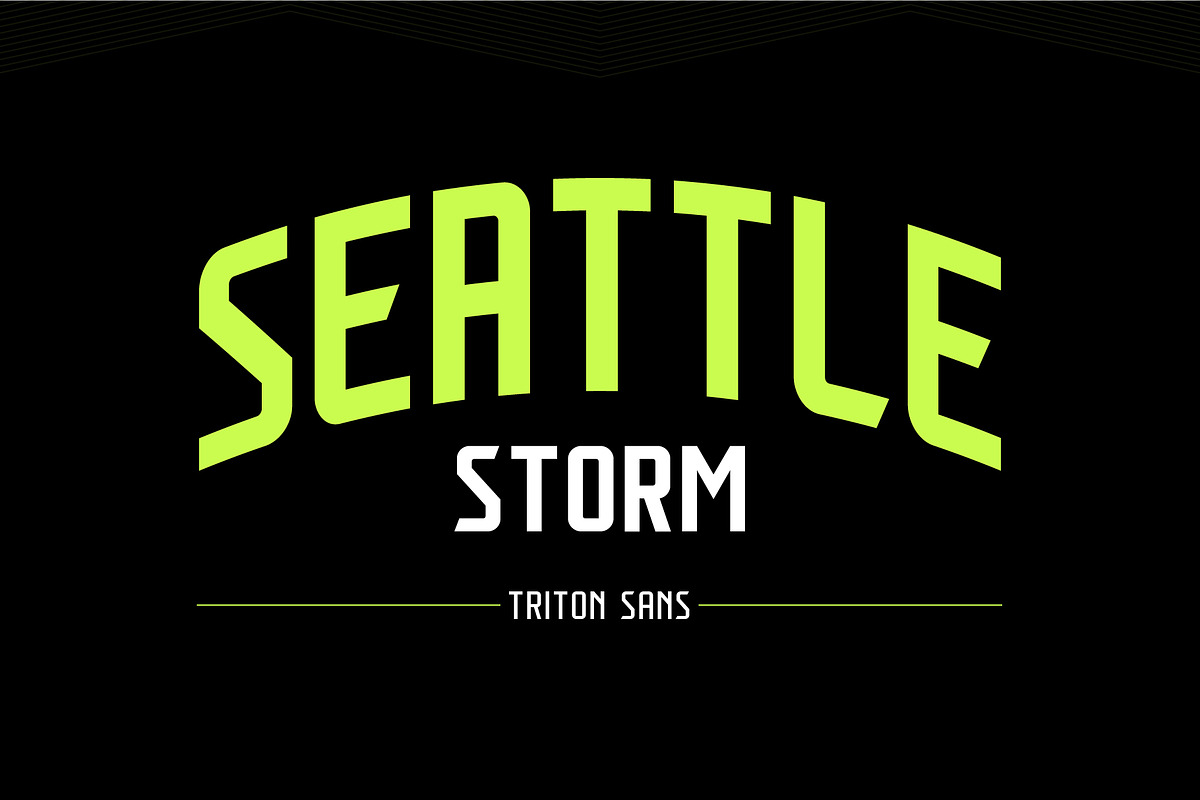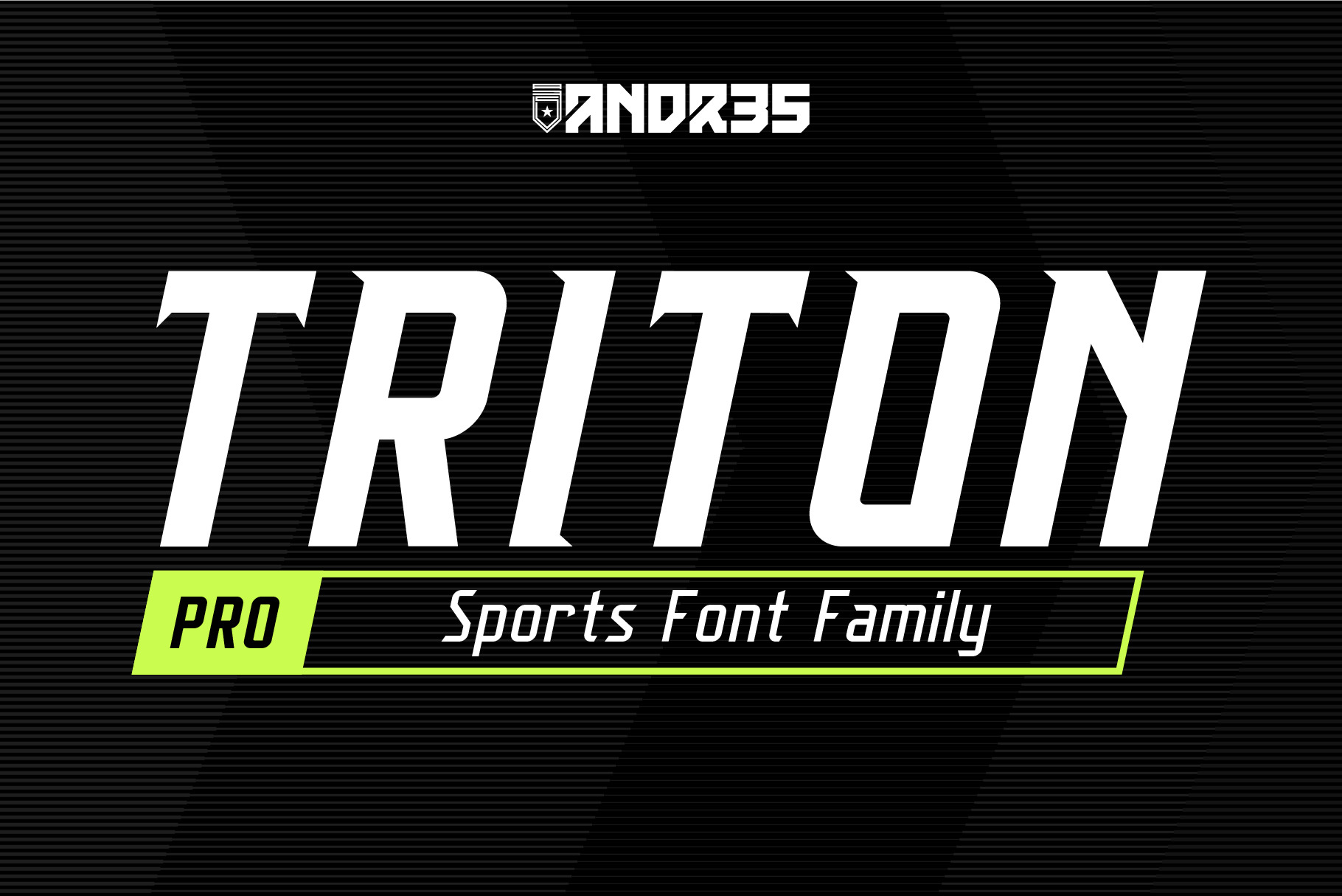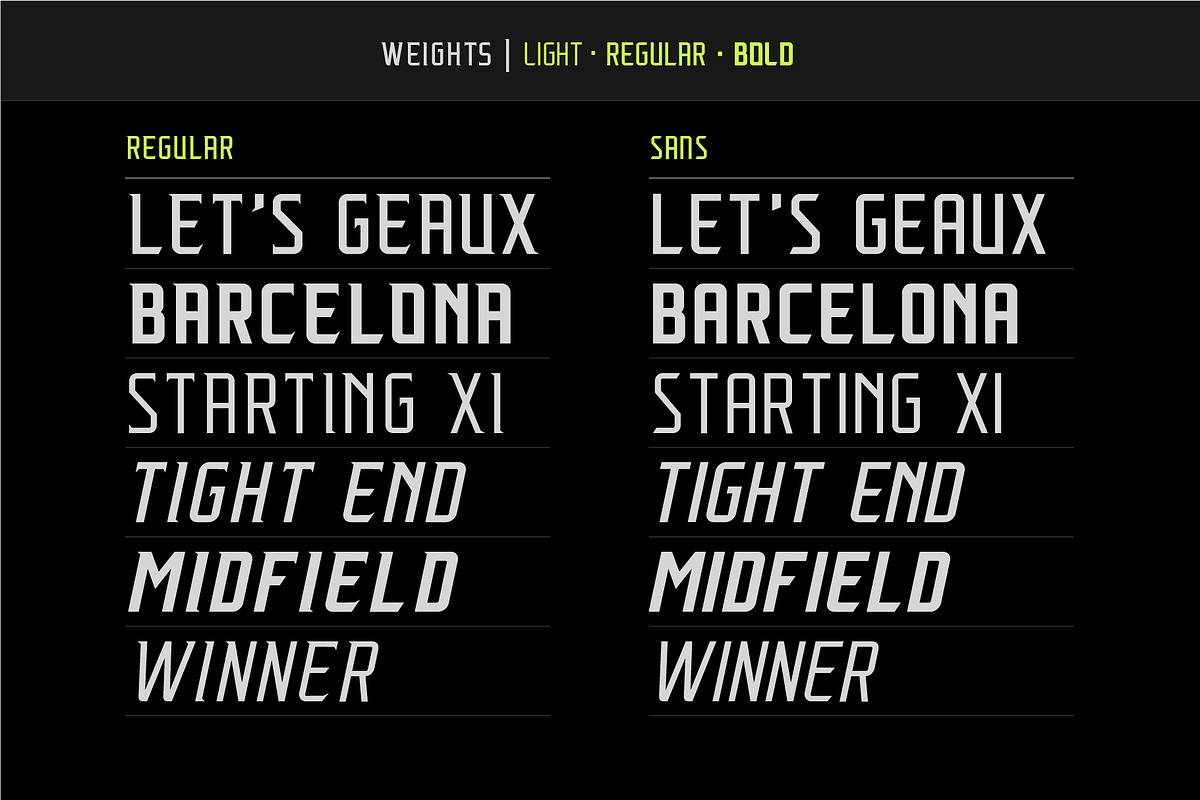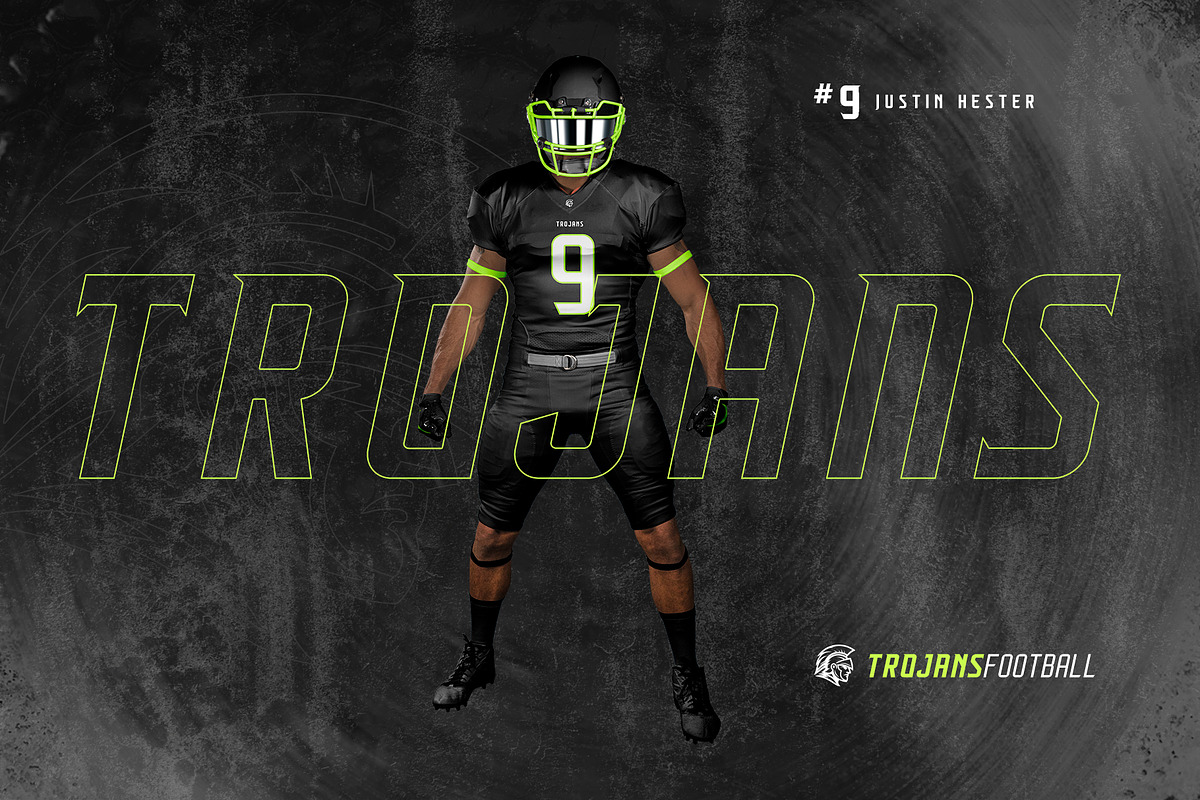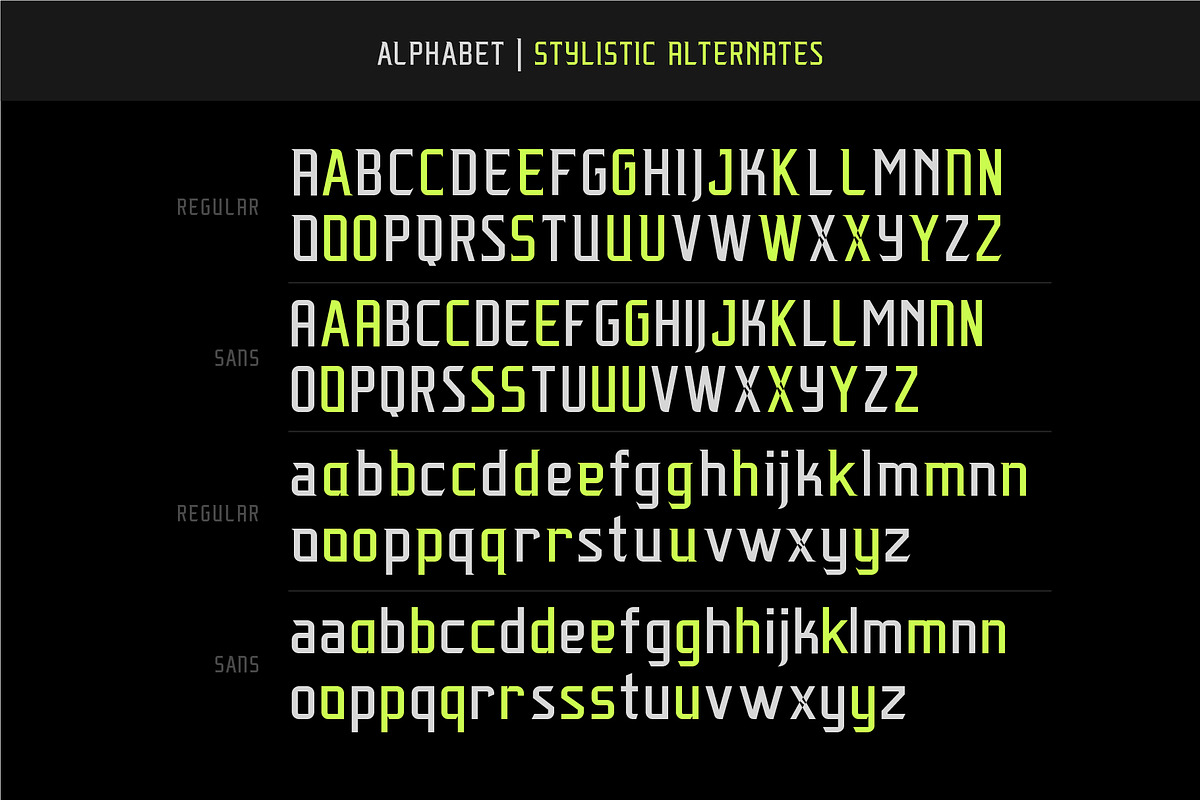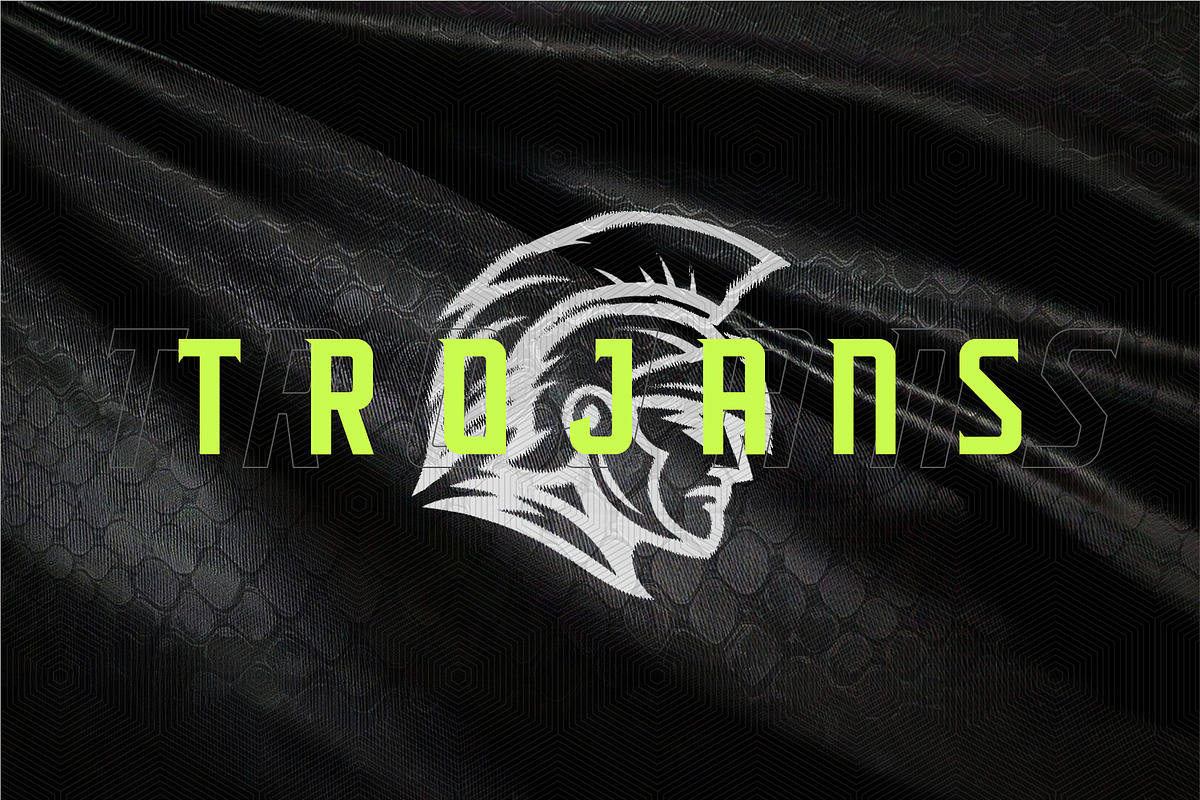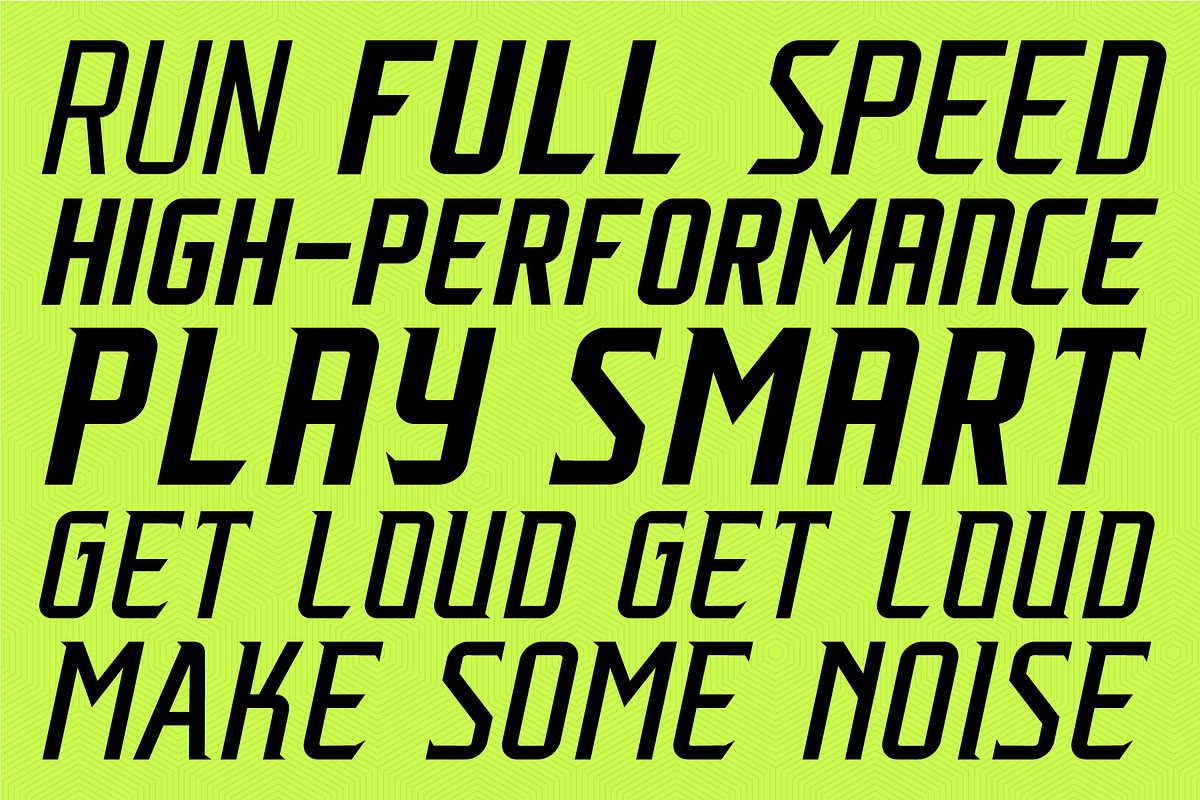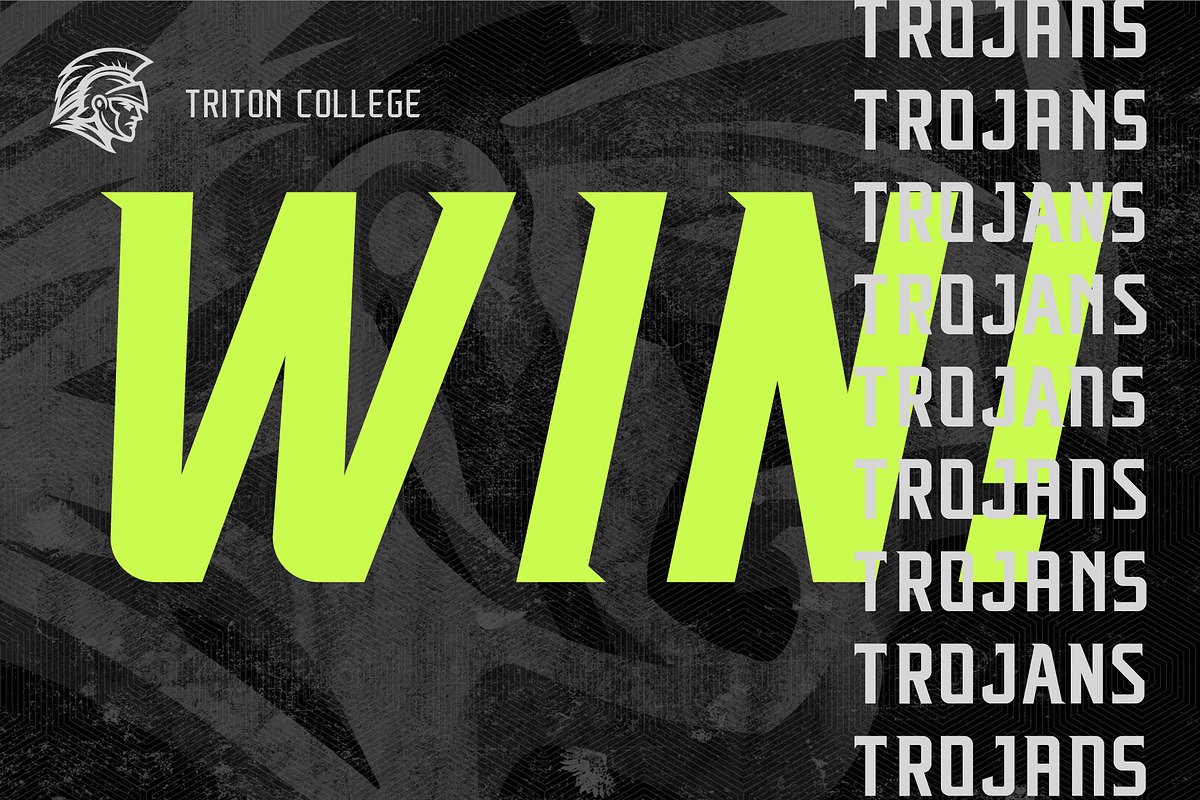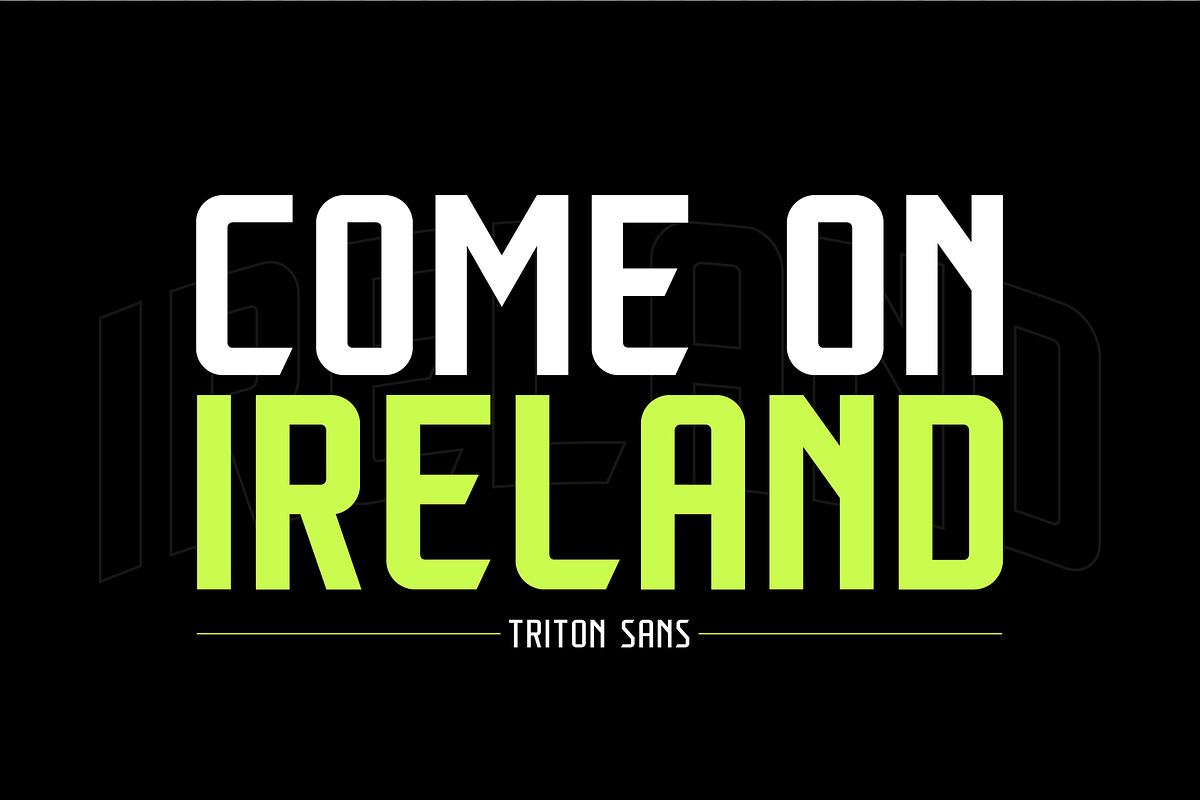
Triton Pro: Sports Font Family
Triton Pro: Sports Font Family was created with sports designers and their usages of type in mind. Triton is perfect for sports, apparel, promo and large headline uses. It's versatility allows you to brand each sport and is built with jersey placement in mind, so you could utilize Triton on each sports' jersey to really tie things together!
UPDATE: It's appeared in 2 World Cups (Men's and Women's) and at the time of this update (Oct 2025), being used by the Football Association of Ireland on their kits, videos, social and stadium graphics.
Inspiration came from sports logo design and Nike's recent NCAA/NFL type systems. With added punctuation, it's more than just your basic A-Z/0-9, which means you can use it for more pieces, such as social media, ads, game programs, etc.
New Features Include:
- 12 fonts (6 Regular and 6 Italics)
- Upper & Lowercase
- Alternate Glyphs (Mix things up)
- Expanded Glyphs (just over 300 glyphs)
- Basic Latin Diacritics (In case you need to throw down some Spanish/French, etc.)